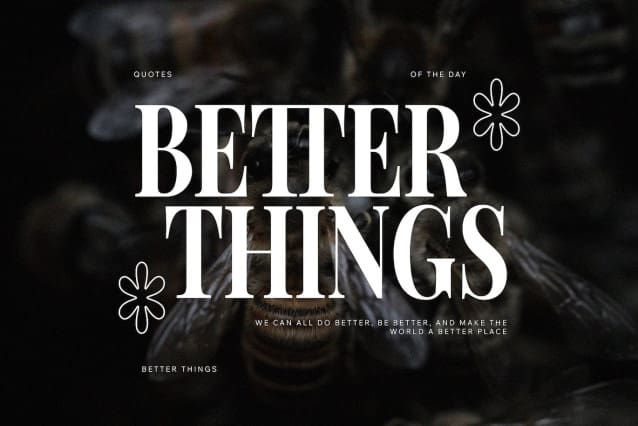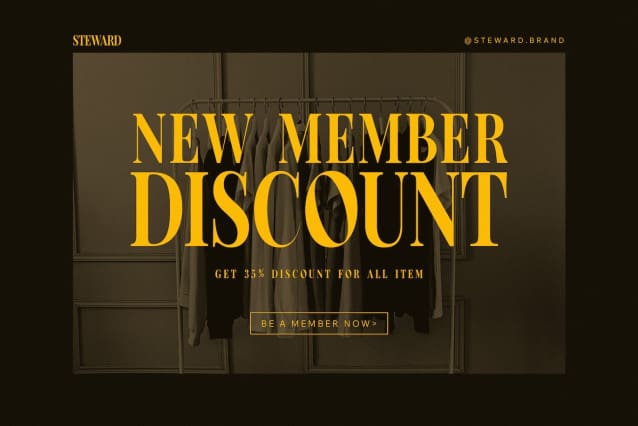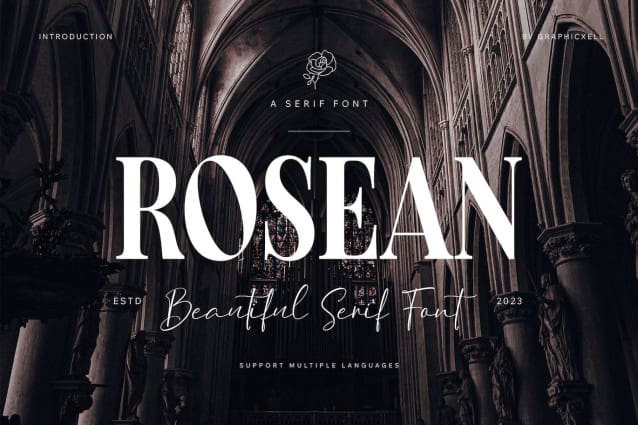
Rosean Font
Rosean Font, inspired by the famous minimalist logo, perfect for designing templates, brochures, videos, advertising brands, logos, invitations, layouts, elegant crafts, beauty design, etc.